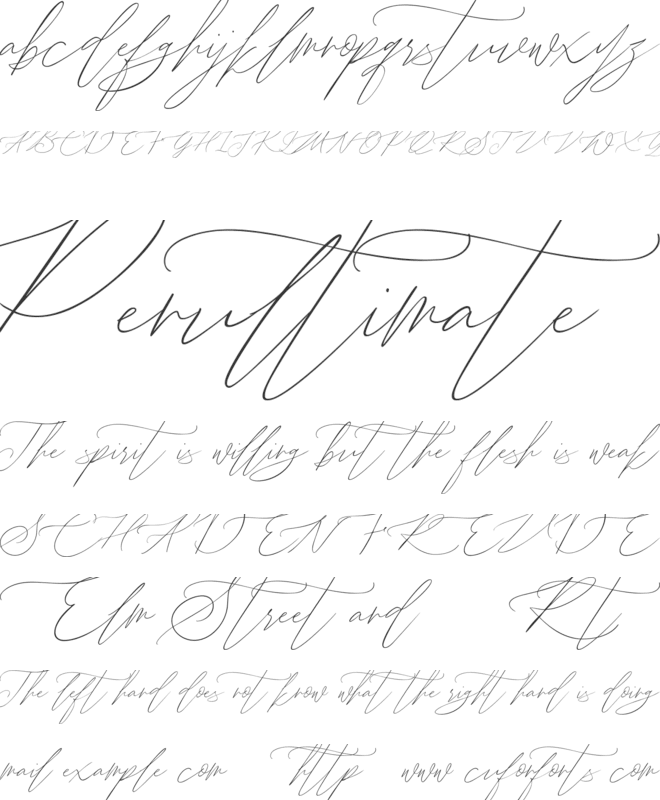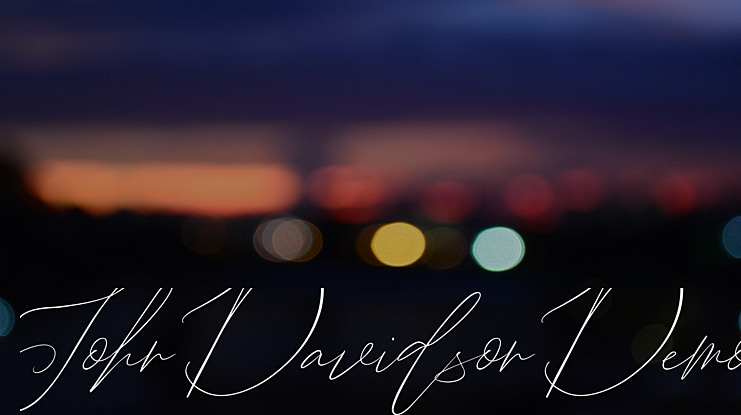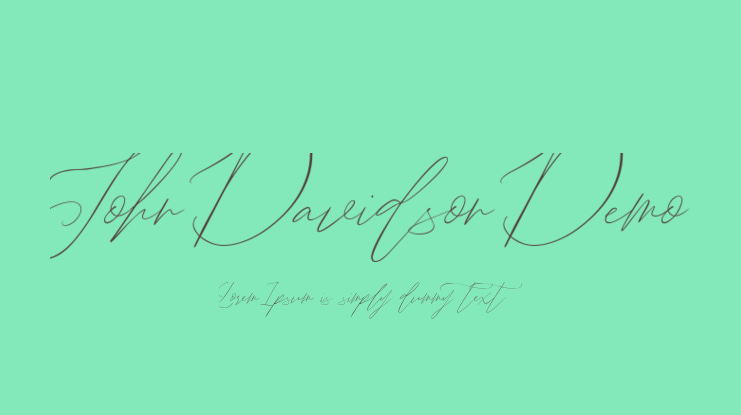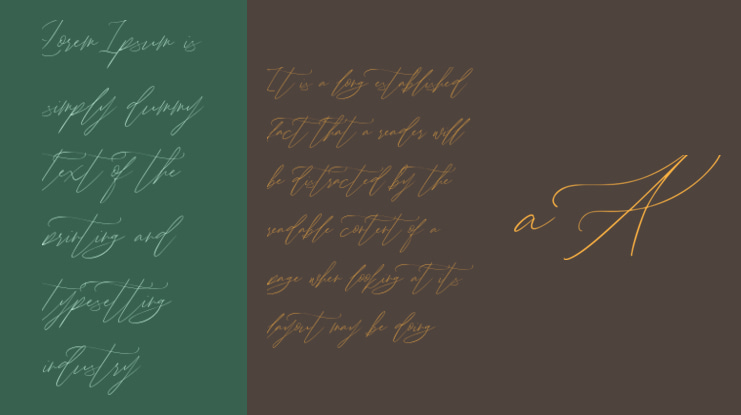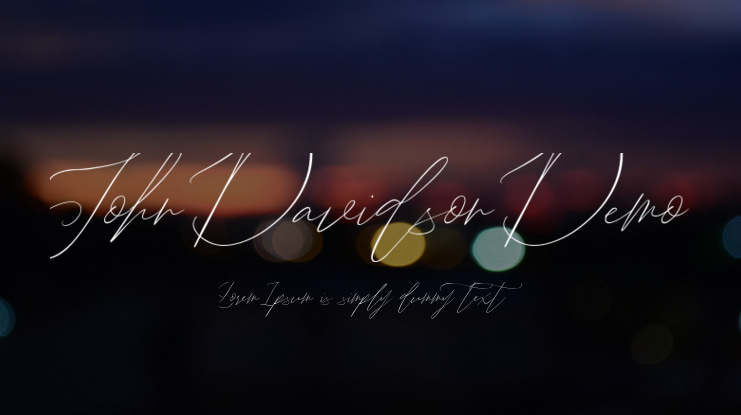
John Davidson Demo Font
Introducing the John Davidson, a beautiful modern calligraphy font with handwritten, sophisticated flows. John Davidson offers beautiful typographic harmony for a diversity of design projects, including logos & branding, wedding designs, social media posts, advertisements & product designs.
"John Davidson" includes full set of lovely uppercase and lowercase letters, multilingual symbols, numerals, punctuation and ligatures.